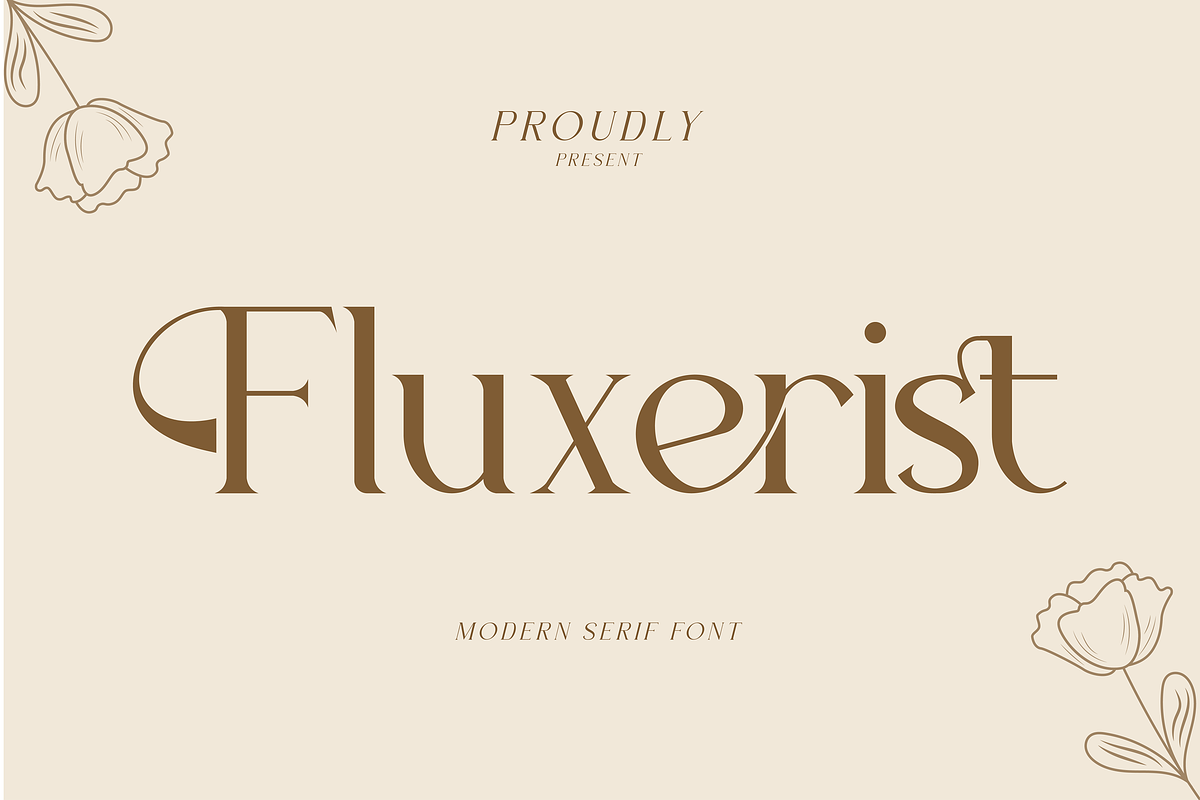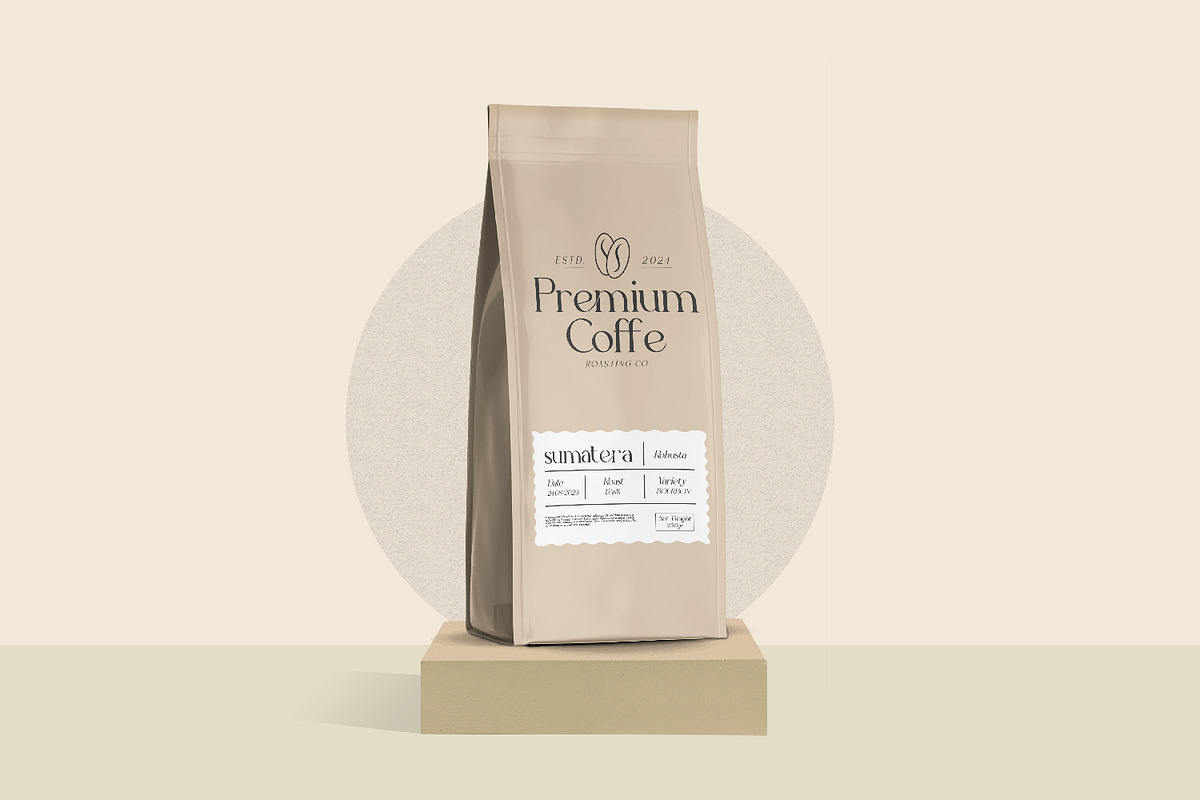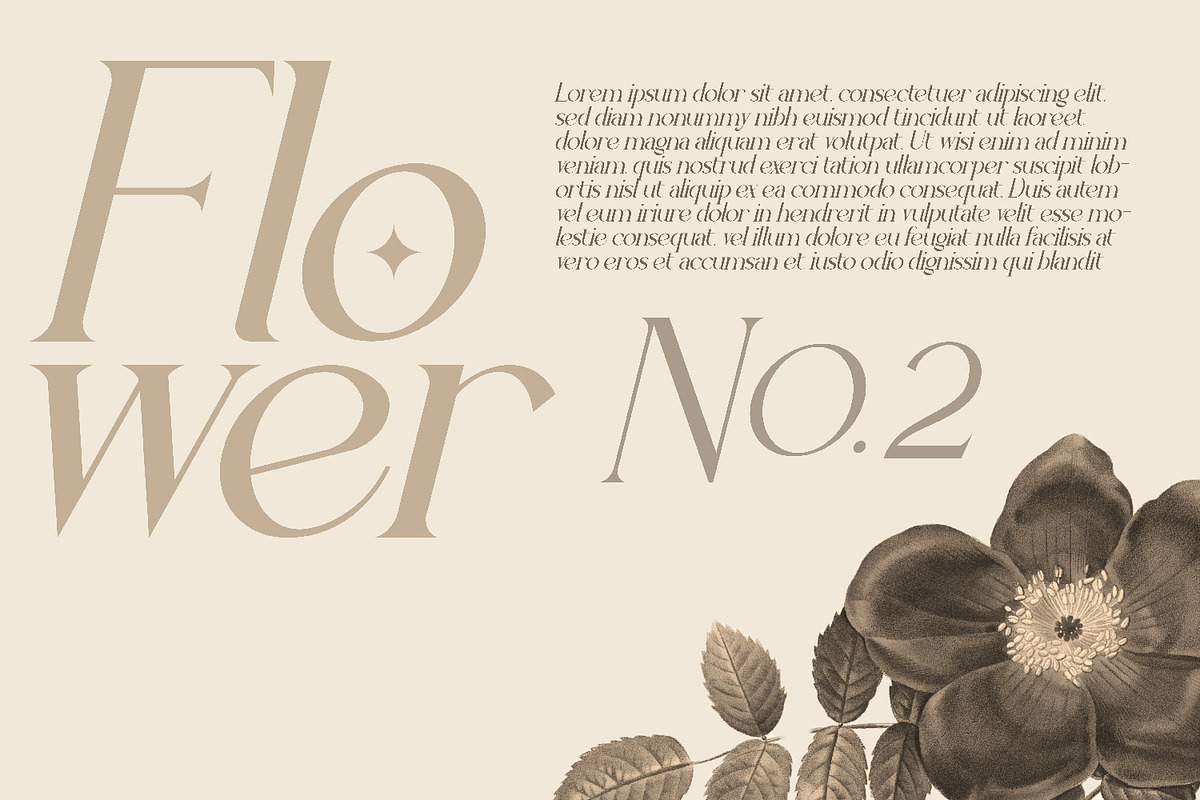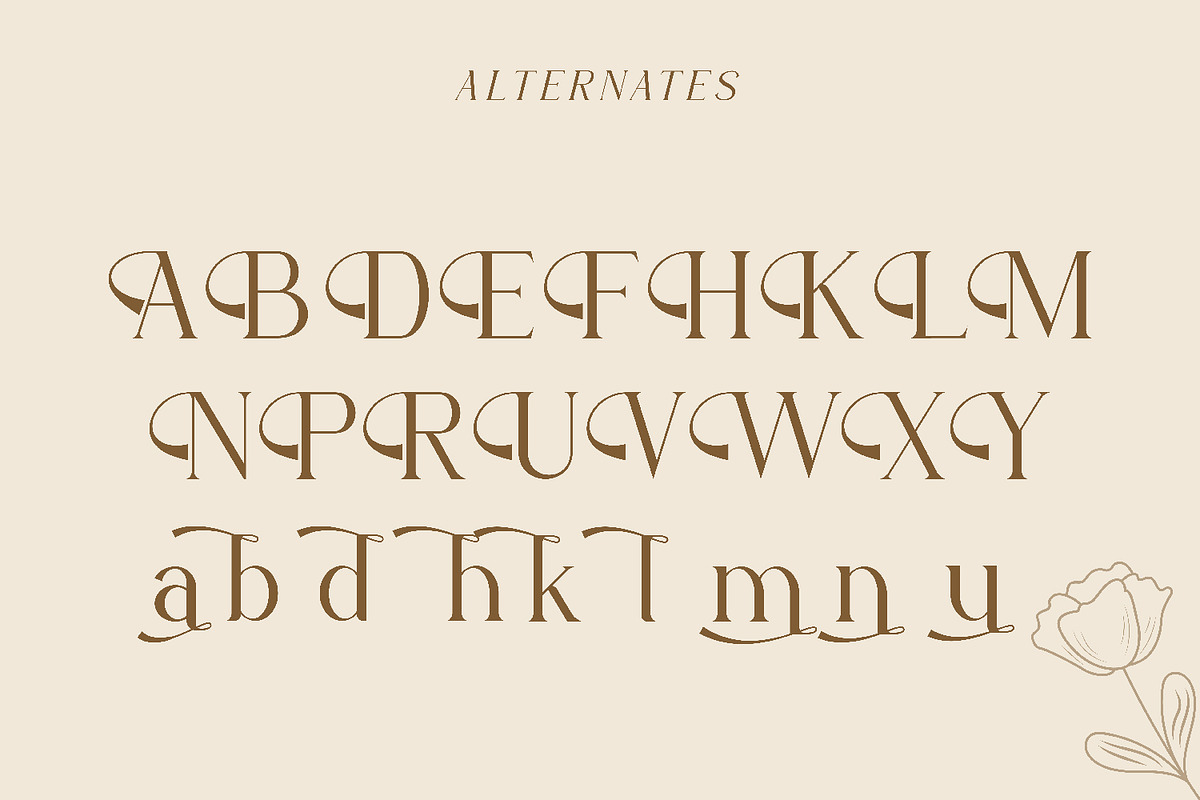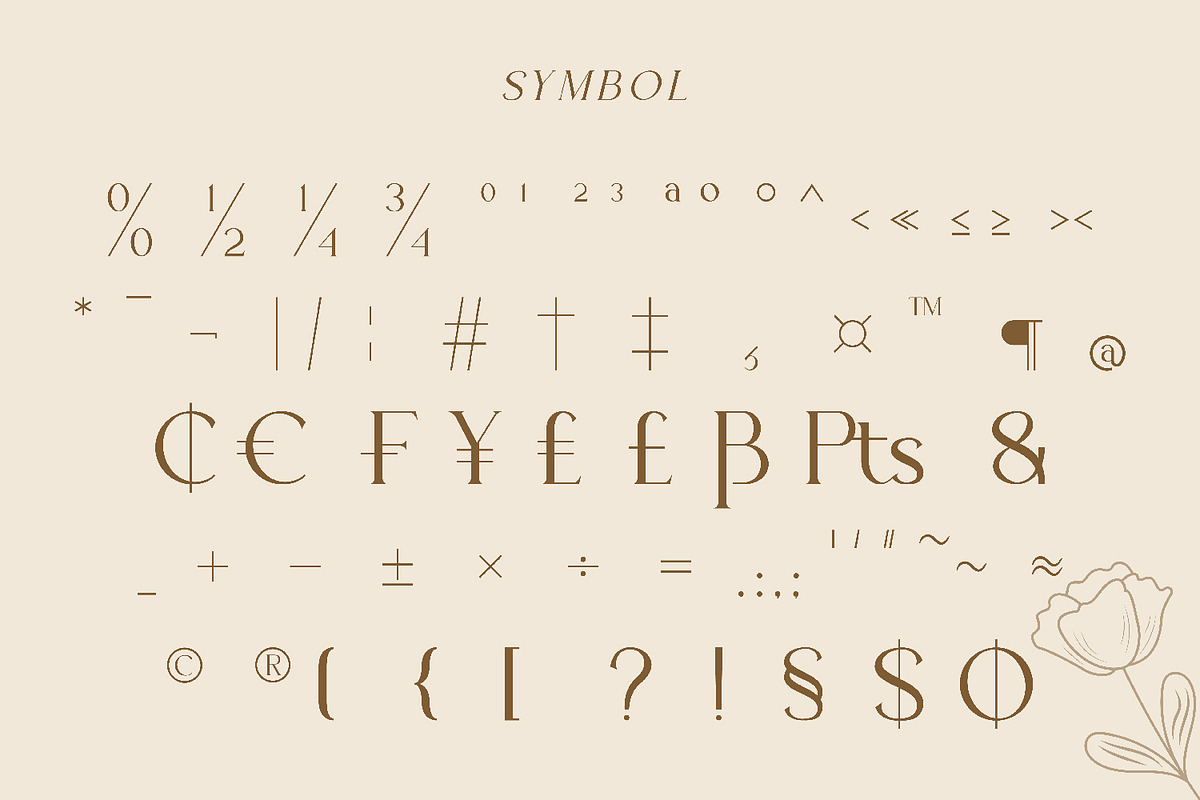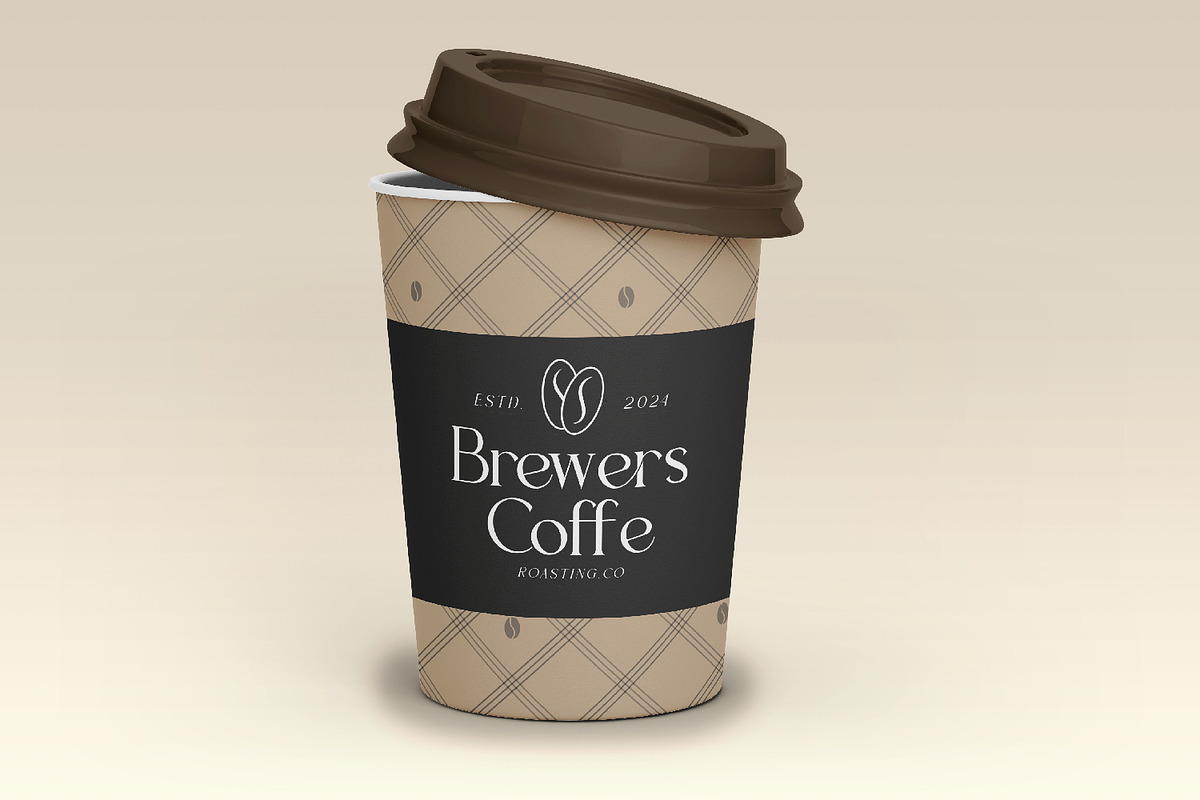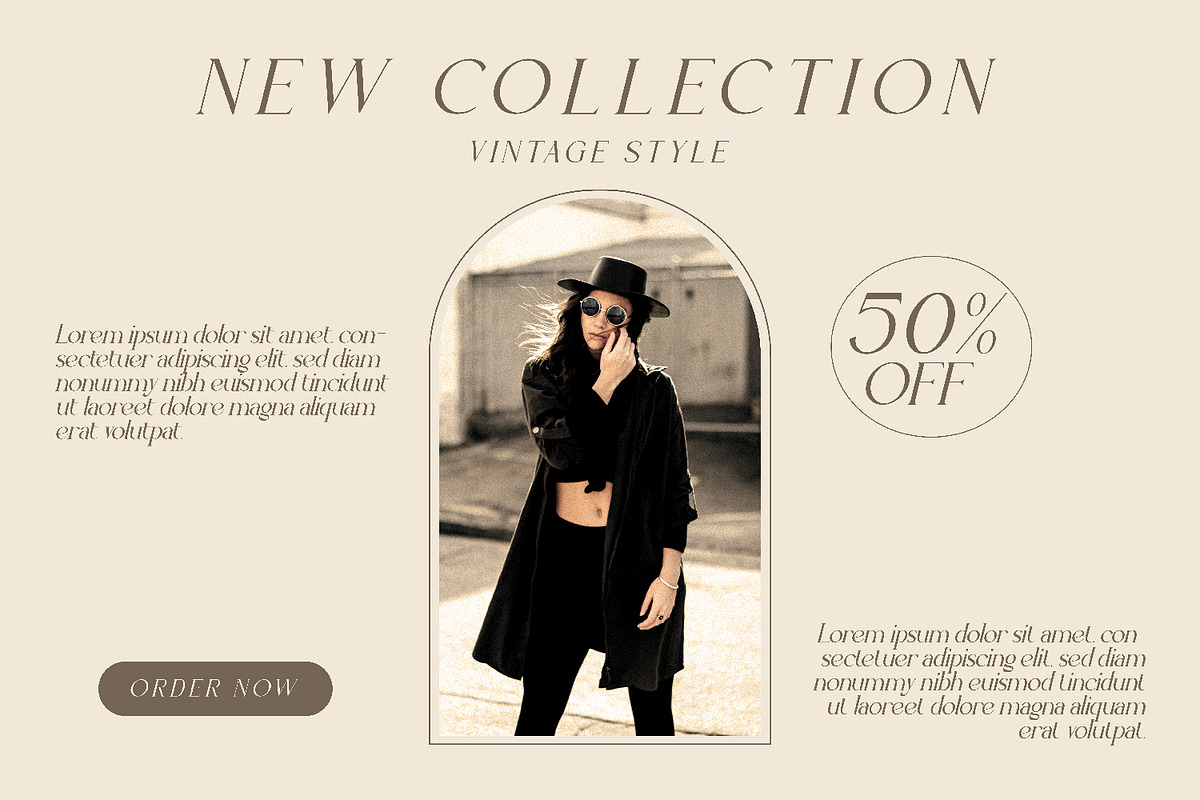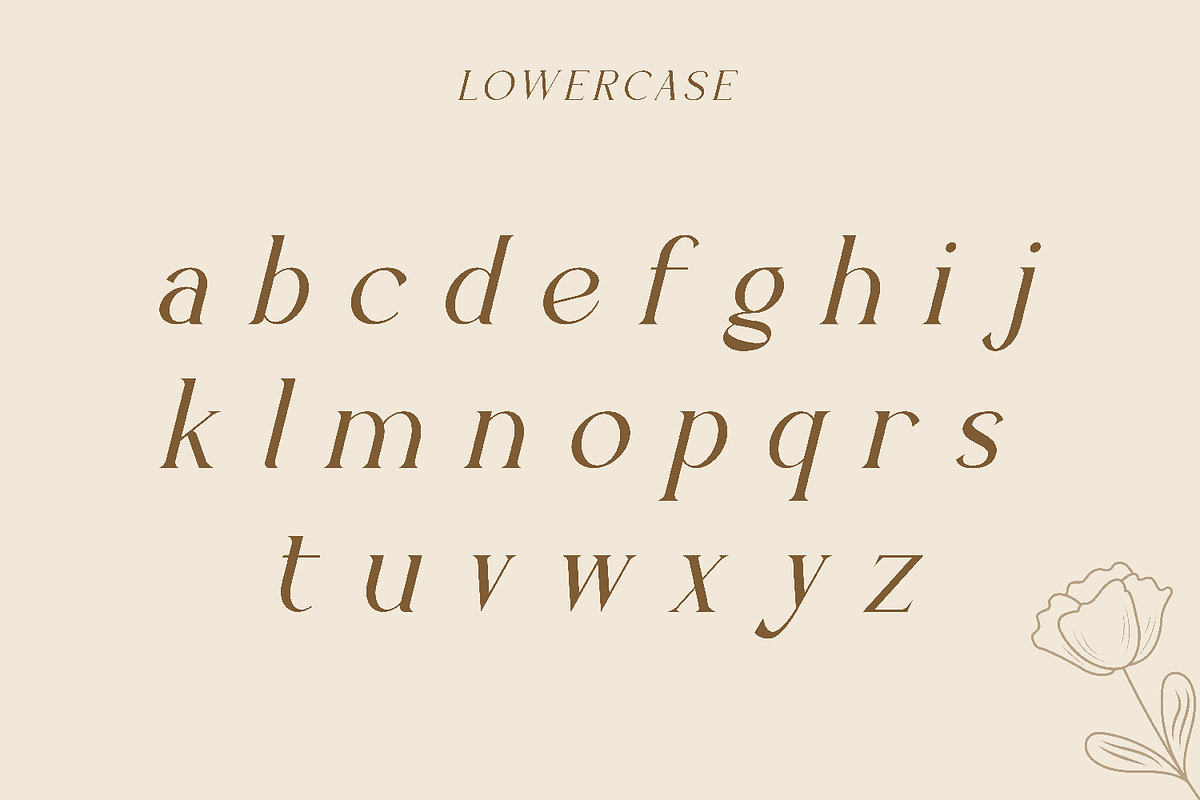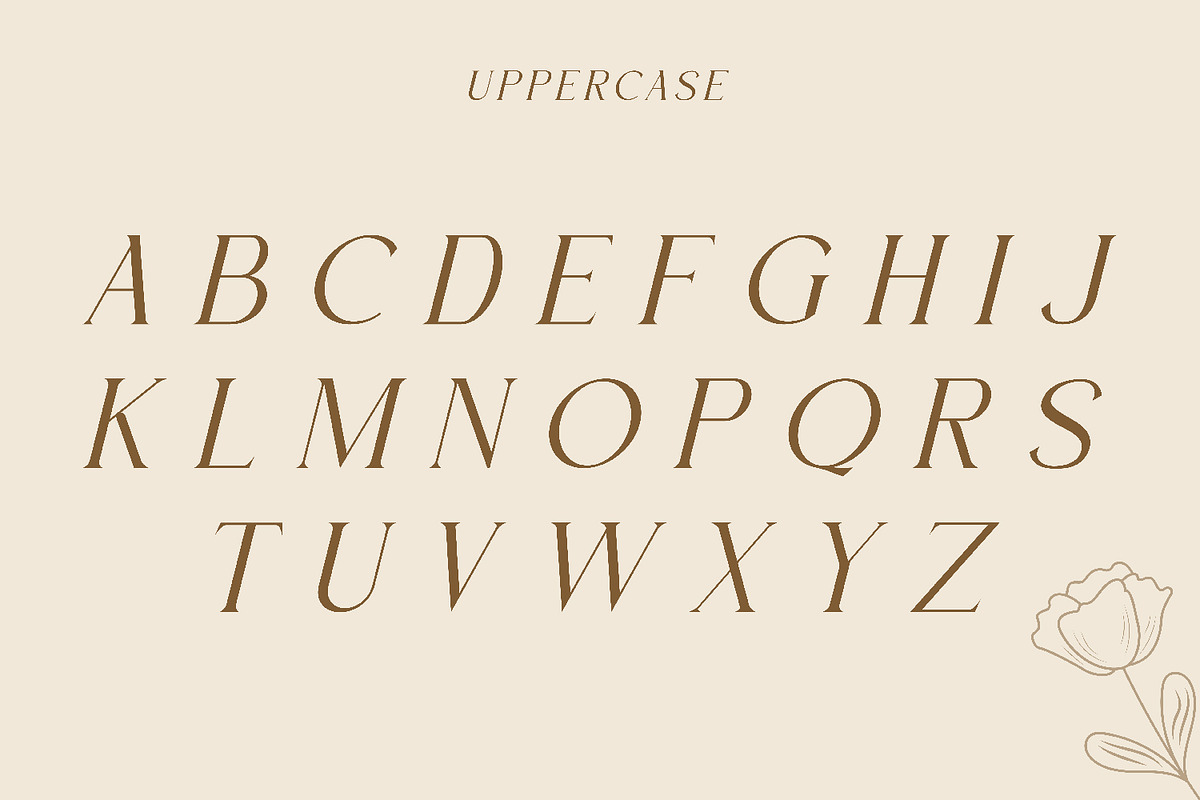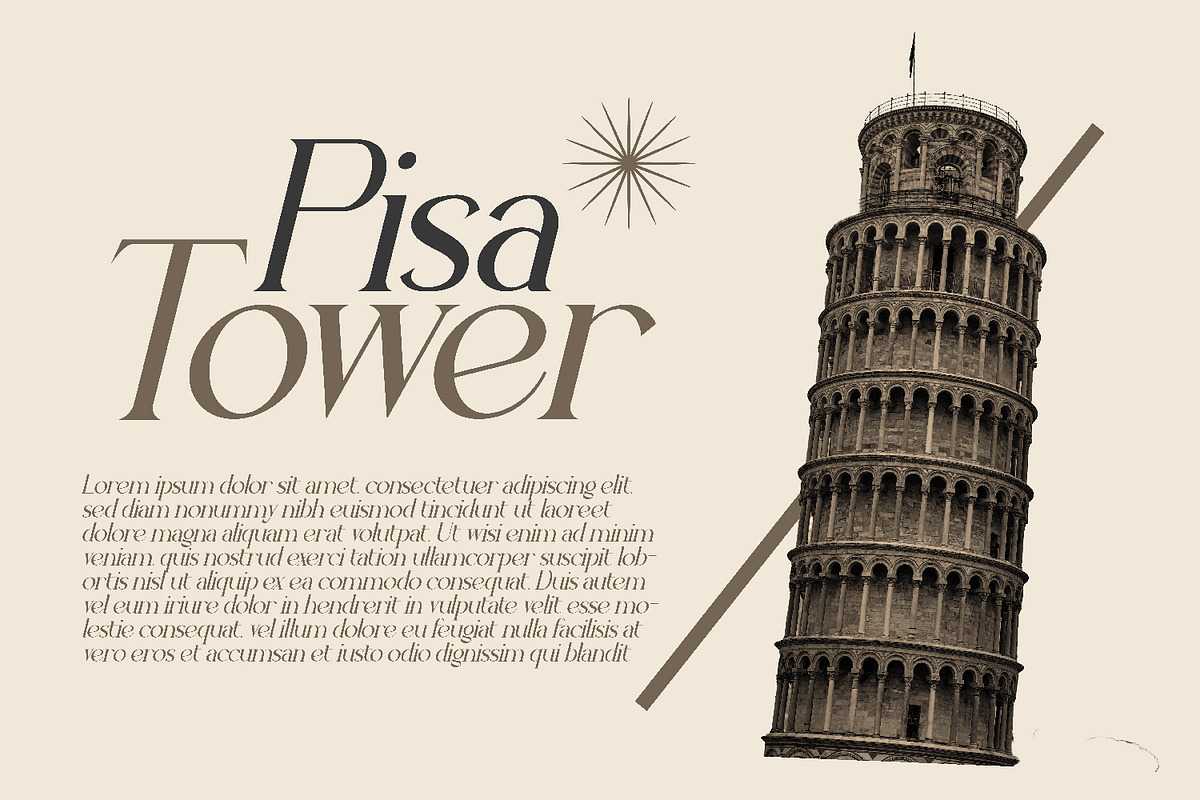
Fluxerist
Fluxerist - Modern Elegant Serif Font, from Rishsketch Studios, is a premium Serif Font, perfect for any project that requires a distinctive, and premium feel.
Ligature, Alternate & Multilingu